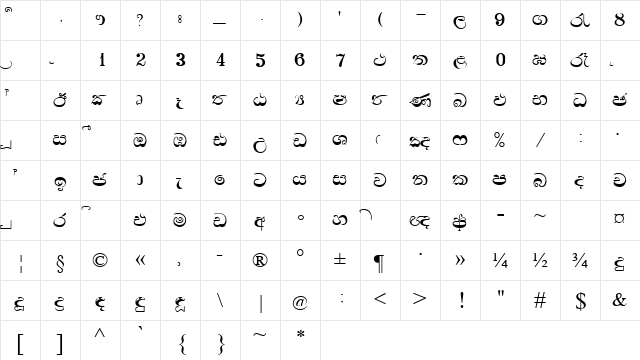
Tipitaka_Sinhala1 Regular
Design Context for Tipitaka_Sinhala1 Typeface
Tipitaka_Sinhala1 takes a measured approach to typography — its balanced proportions and neutral character make it a reliable workhorse for both digital and print work.
Pro Tip: Use Tipitaka_Sinhala1 in both headline and body roles to test its range before committing to a single application.